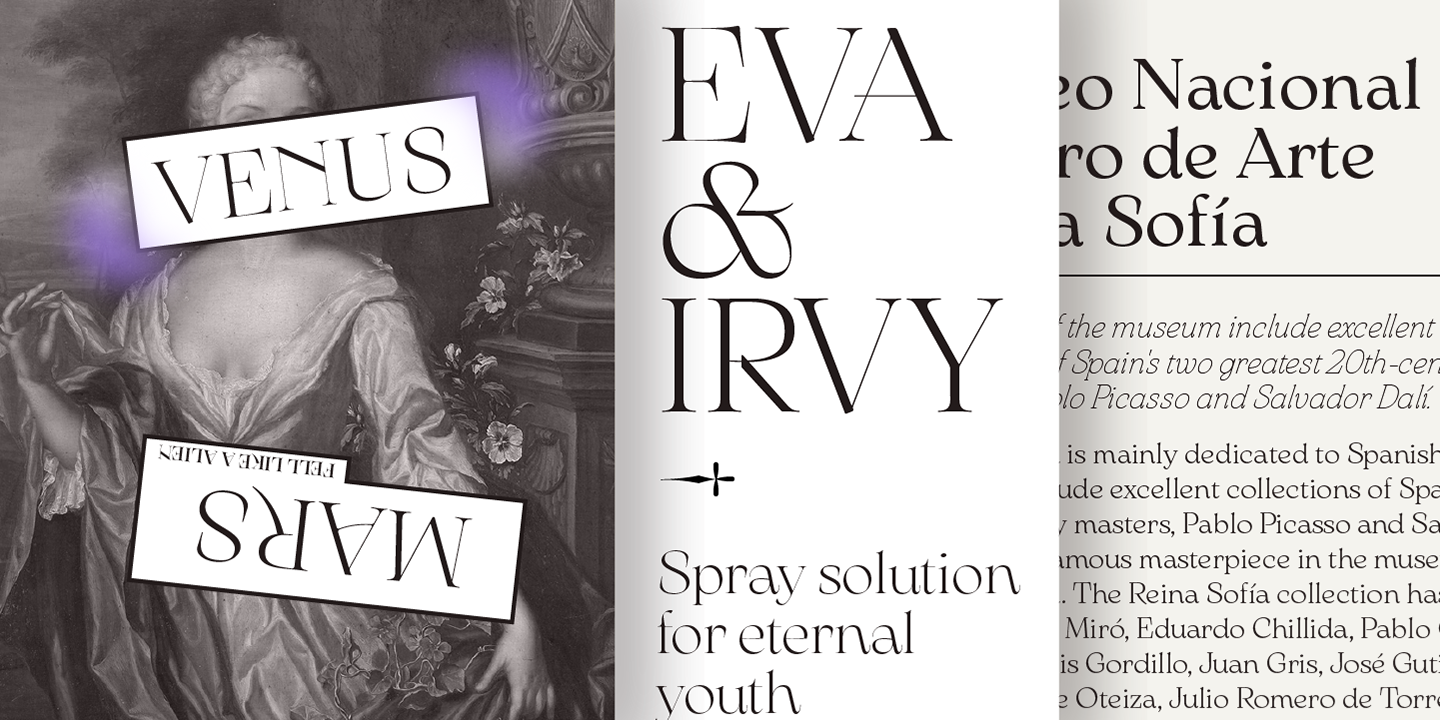
Arsenica Font is perfect for dark fantasy gaming graphics, gothic fashion branding, alternative music promotions, edgy streetwear designs, underground art projects, mysterious thriller book covers, dark beauty product packaging, gothic event signage, alternative lifestyle marketing, and dramatic entertainment venues.
What makes Arsenica Font exciting is its dangerously elegant character that perfectly captures the seductive darkness and sophisticated rebellion found in gothic culture and alternative lifestyle movements. This typeface features sharp letterforms with toxic proportions and venomous details that evoke the alluring danger of forbidden knowledge and the sophisticated darkness of gothic aesthetics. The font's rebellious personality and gothic authenticity make it ideal for alternative brands seeking to convey mystery, rebellion, and the sophisticated darkness that comes from embracing unconventional beauty and gothic cultural values.
Arsenica Font family includes venomous weight variations and gothic alternatives that enhance its dark appeal while providing design flexibility for alternative and gothic applications. The font features poisonous ligatures, dark ornaments, and rebellious character variations that create authentic gothic atmosphere for alternative and dark lifestyle branding.
Alternative fashion brands and gothic lifestyle companies consistently select Arsenica Font Free Download for projects requiring authentic dark appeal and gothic credibility. The font's dangerous character excels in applications targeting gothic culture followers, alternative lifestyle enthusiasts, and rebellious individuals who appreciate sophisticated darkness and unconventional beauty. Whether you're designing for gothic fashion, alternative music venues, or dark lifestyle products, this seductive typeface delivers the gothic authenticity and sophisticated rebellion that resonates with audiences seeking genuine alternative expression and the elegant darkness that defines gothic culture and alternative lifestyle movements.